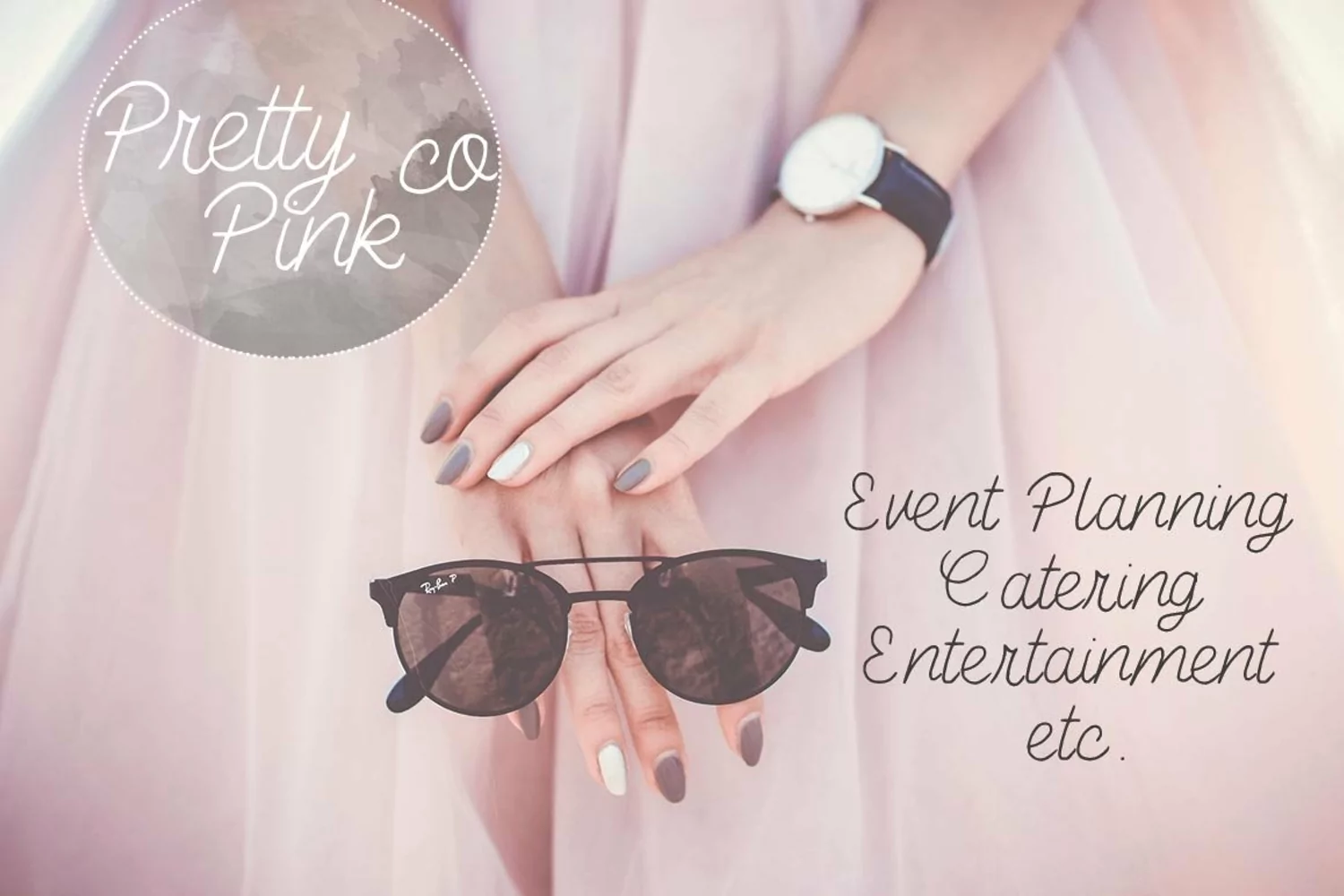
Charming & Beautiful Script
Charming and beautiful is a fabulous font that looks clean and hand-written. Perfect for bloggers, influencers and logo designers alike! :)What's Included: